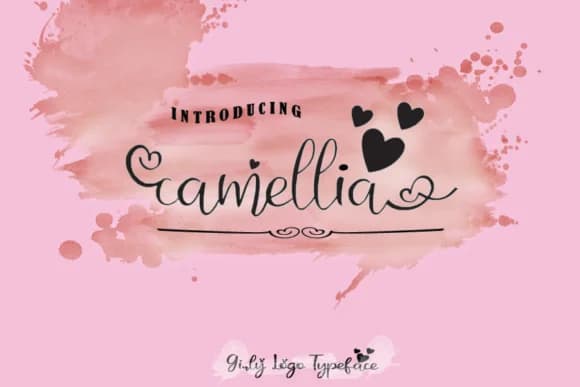
Camellia Font by dmletter31 is an expressive handwritten script that brings authentic personality and flowing elegance to contemporary design projects. The typeface beautifully captures the organic quality of hand-lettered calligraphy while maintaining excellent legibility across both digital platforms and high-quality print applications, making it a versatile choice for designers seeking authentic character.
Designers consistently choose Camellia for wedding invitation suites, where its sophisticated letterforms add an intimate, personal touch that resonates with special occasions. Fashion and beauty brands rely on this script for luxury packaging design, transforming product labels and boutique skincare containers with genuine artisanal appeal. Lifestyle and wellness content creators use Camellia for social media branding, building a distinctive visual identity that captures audience attention across crowded feeds. The typeface equally enhances greeting cards and personalized stationery, bringing warmth and authenticity to hand-written correspondence.
Camellia Font is a script font that shines as a display or heading face. Pair it with a clean sans-serif or serif font for body text β the contrast creates a clear hierarchy while the two styles stay balanced and easy to read.
Camellia Font
by dmletter31